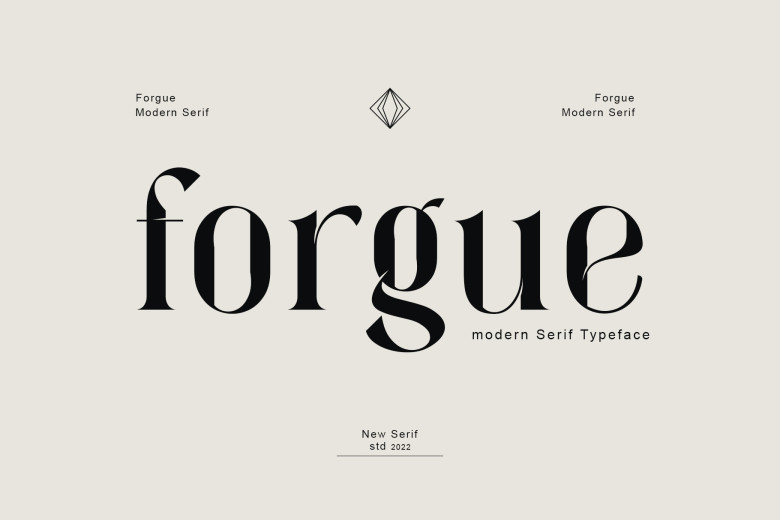
Forgue Font
Forgue is tender and timeless serif font. Forgue is perfect for elegant logo design, packaging or invitation cards as well as a headline, poster, branding, Instagram stories, advertising and your other design projects.
Forgue Serif Font